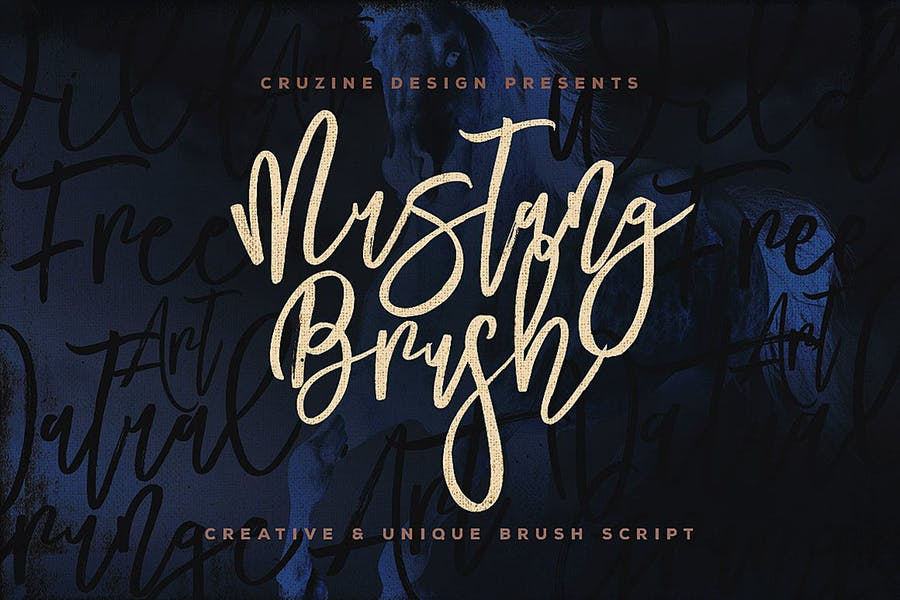
Mustang Brush Font
Mustang Brush Font is perfect for rugged automotive brands, American muscle car dealerships, wild west entertainment venues, rodeo event promotions, outdoor adventure companies, motorcycle gear retailers, cowboy culture brands, ranch lifestyle marketing, freedom-themed campaigns, and authentic American spirit branding.
Mustang Brush Font creates excitement because it embodies the untamed freedom and powerful spirit of American independence with its bold brush letterforms and mustang-inspired character design. The font's dynamic strokes and wild aesthetic instantly convey raw power and unbridled freedom, making any brand appear authentically American and genuinely free-spirited. Its carefully crafted western details and wild mustang character create an immediate sense of American authenticity that captivates audiences seeking freedom experiences, powerful quality, and products that celebrate the transformative power of American independence and wild western spirit.
This powerful typeface brings the authentic spirit of American freedom into contemporary design with remarkable energy and western appeal. Mustang Brush Font Free Download provides automotive brands and western organizations with access to premium freedom-inspired typography that embodies the essence of American independence and mustang power. The font's dynamic design and western authenticity make it ideal for businesses seeking to establish meaningful connections with freedom-loving audiences who appreciate American heritage, western culture, and the transformative power of unbridled independence that defines the American spirit. Whether you're creating branding for automotive companies, designing materials for western entertainment venues, developing communications for outdoor adventure services, or producing content for American heritage brands, this font delivers the wild mustang atmosphere that resonates with audiences seeking genuine freedom experiences, American quality, and the powerful independence that comes from embracing authentic American western heritage. Its versatile design ensures outstanding performance across both rugged printed materials and dynamic digital American platforms while maintaining the character of authentic western typography. The font excels in applications requiring American credibility and freedom appeal. Automotive industry professionals appreciate its ability to convey mustang authenticity while remaining highly functional for various western communications and American promotional materials. The comprehensive character set includes western symbols and extensive international language support, making it perfect for global American brands and international western organizations seeking to communicate authentic American freedom, mustang power, and western excellence to diverse worldwide audiences who embrace American independence, seek freedom experiences, and value the transformative power of genuine American spirit that runs wild through the open roads of possibility, creating unlimited adventures through the boundless freedom of authentic American heritage and the unstoppable power of the American mustang spirit.